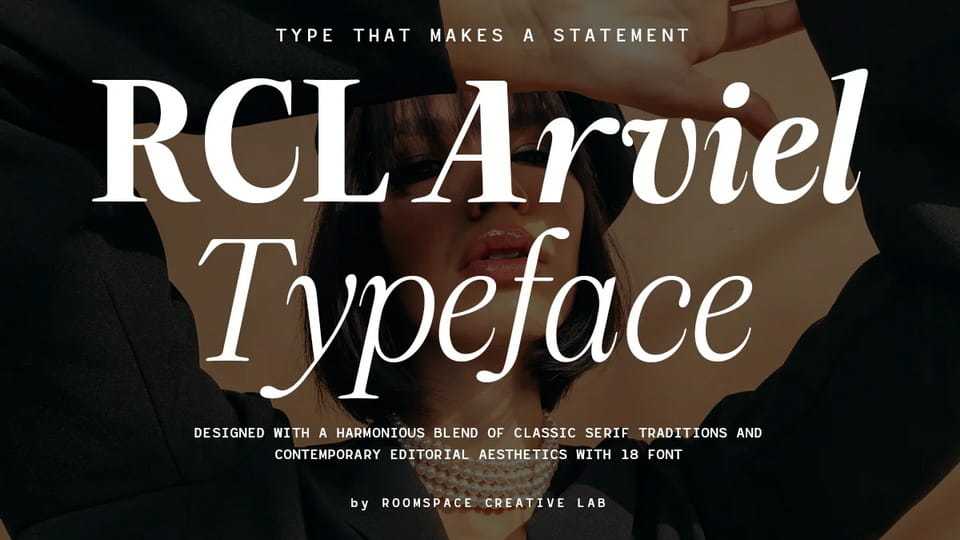
RCL Arviel Font › Fontesk
Download RCL Arviel font, a modern serif typeface built for strong visual impact. Elegant contrast and expressive form define the family, from its sculpted serifs to its dynamic curves and editorial character.